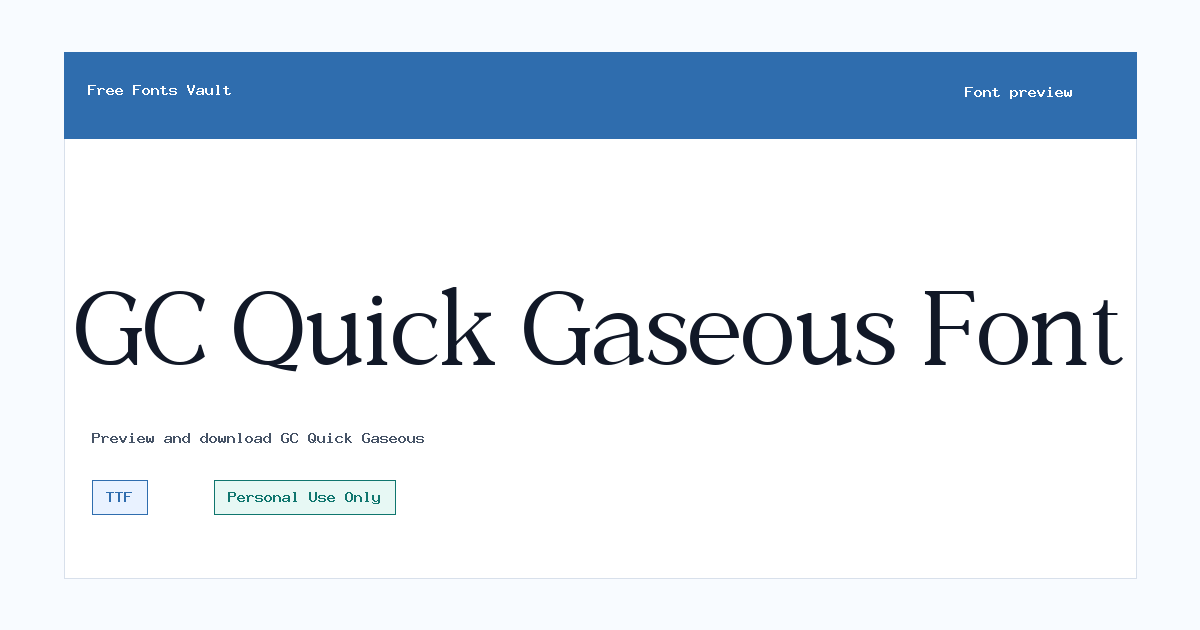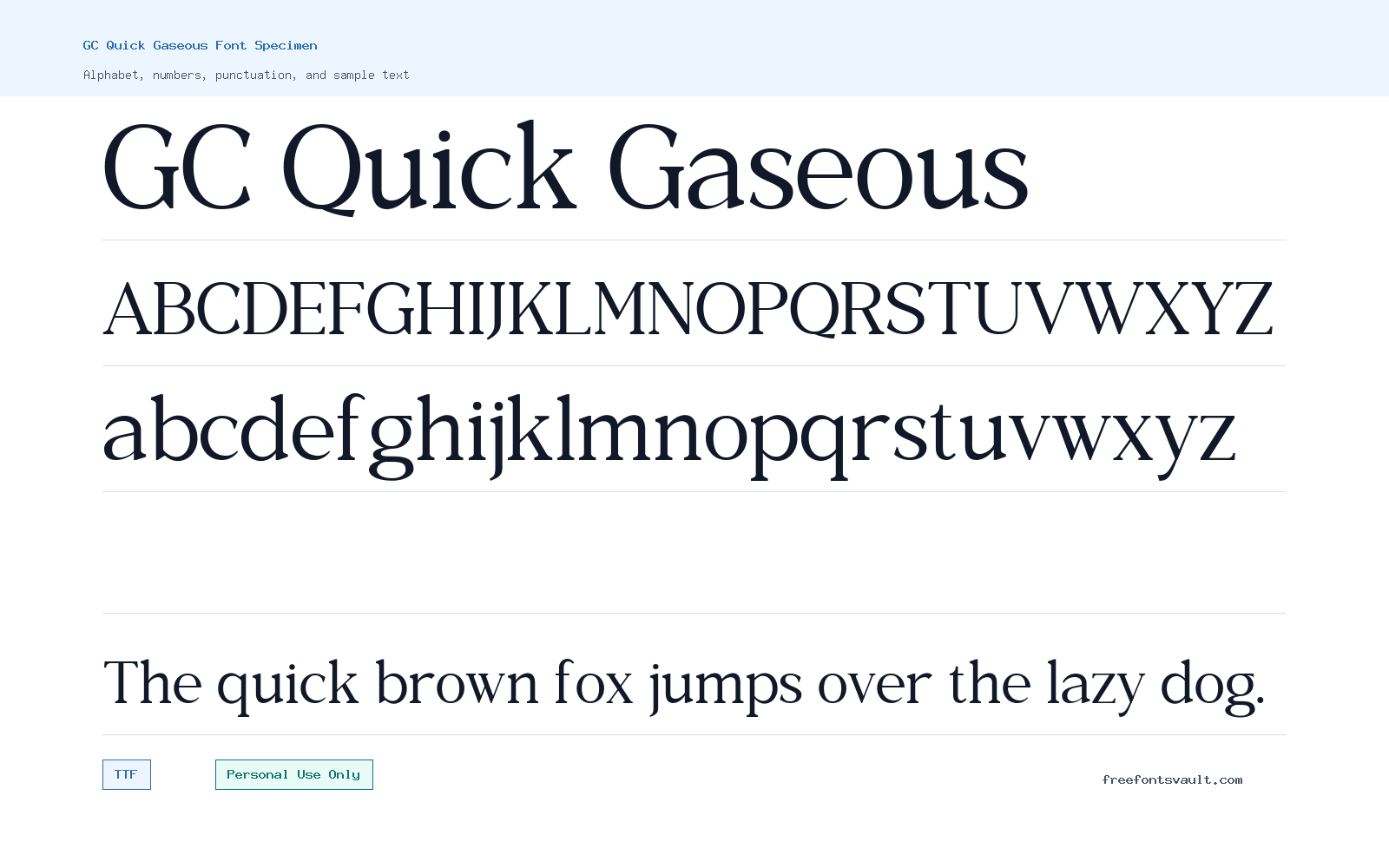
GC Quick Gaseous
- Designer Stefan Widi Pratama of Glyphonic
GC Quick Gaseous font.
GC Quick Gaseous is a serif font with a display-focused feel, made for visitors who want a typeface that can give short text a more distinctive personality.
About GC Quick Gaseous Font
GC Quick Gaseous works best when you treat it as a headline or accent font rather than a long-reading text face. The available file is a regular-weight TTF, so it is simple to test in most design apps and font preview tools. Because the source information describes it as a serif font, it is a good candidate for titles, names, labels, and short pieces of text where the letter shapes can stand out without needing many weights or styles.
- Serif display style suited to short text, titles, and decorative typography.
- Poster titles, cover text, social media graphics, and display headings.
- Brand mood boards, labels, packaging mockups, and short decorative phrases.
GC Quick Gaseous is credited to Stefan Widi Pratama of Glyphonic.
What kind of projects is GC Quick Gaseous good for?
It is best for short display text such as titles, posters, covers, labels, and social graphics. Test it at the size you plan to use, because decorative or display-style fonts can lose clarity in small text.
Who designed GC Quick Gaseous?
The font is credited to Stefan Widi Pratama of Glyphonic.